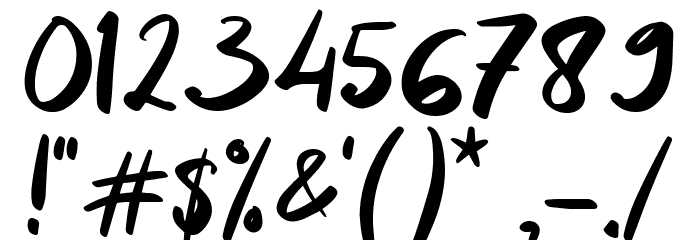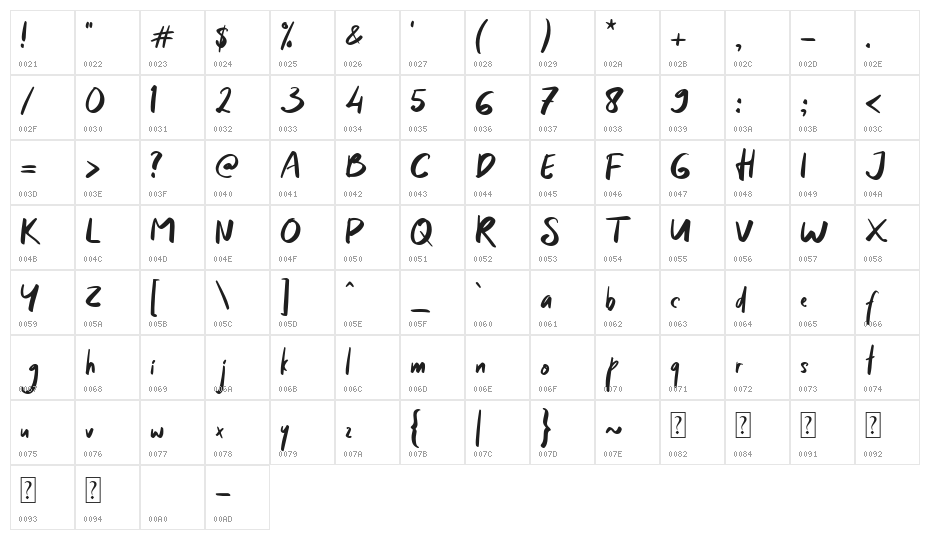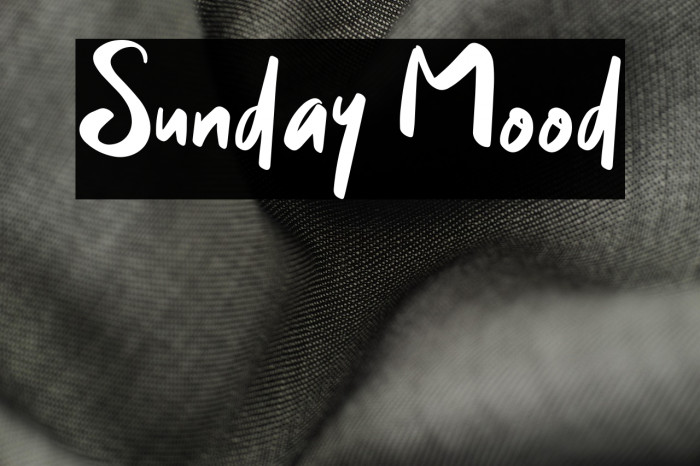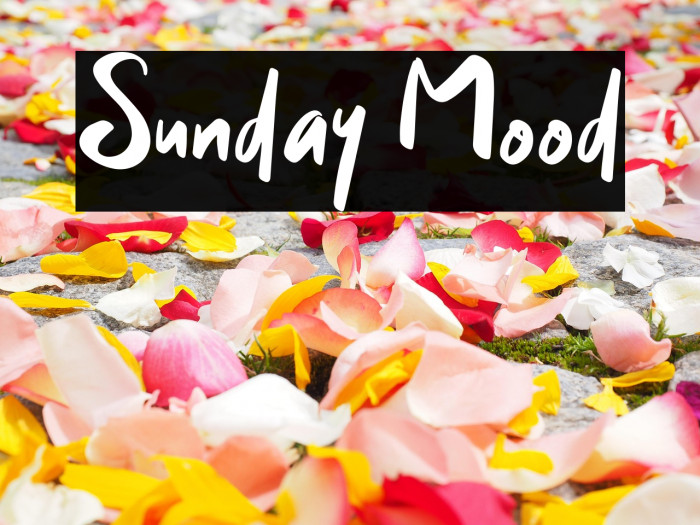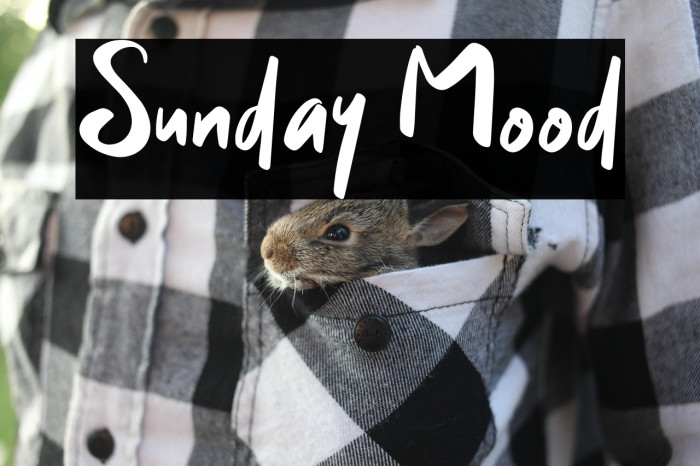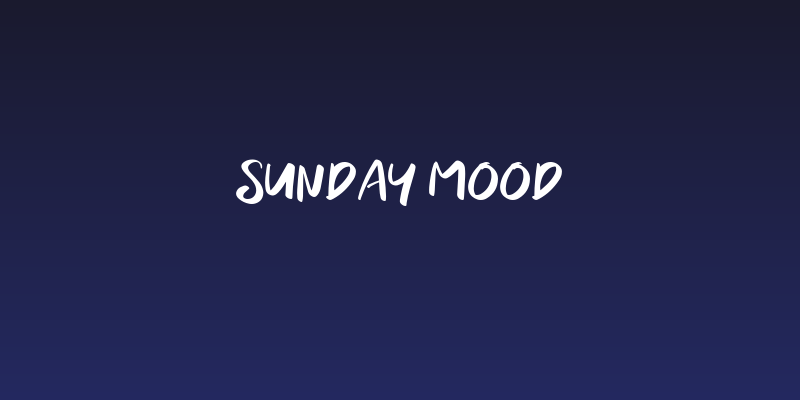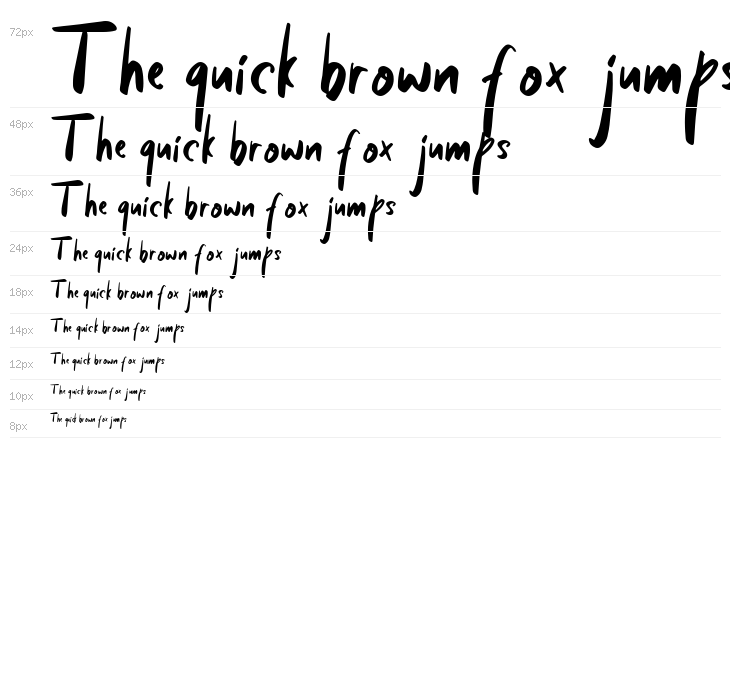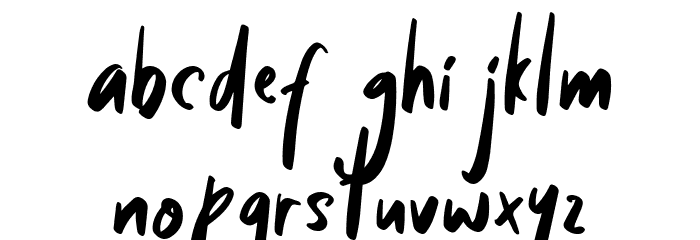
Sunday Mood Font
Sunday Mood Description
This font exudes a casual and playful vibe, characterized by its handwritten style. The letters are slightly irregular, giving it a personal and informal touch. The uppercase and lowercase letters maintain a consistent flow, with rounded edges and varying stroke widths that add to its dynamic appearance. The numerals and special characters are crafted with the same lively energy, making them stand out while remaining cohesive with the overall design. This font is perfect for projects that require a friendly and approachable feel.
| Overall Style | Casual |
| Use Case | Logos, Headlines, Informal Text |
| Proposed Projects | Ideal for greeting cards, personal branding, social media graphics, and informal invitations. |